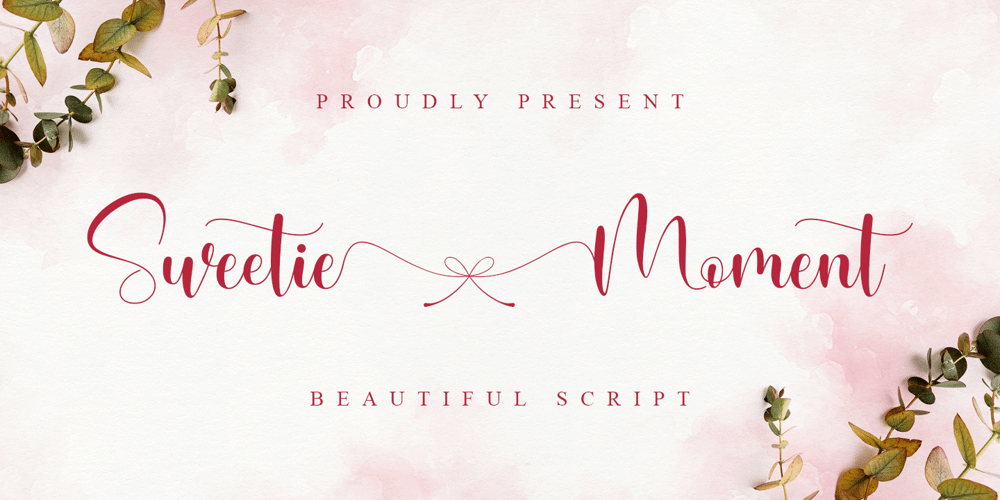
Sweetie Moment Font Family was designed by Abdul Malik Wisnu and published by Almarkha Type. Sweetie Moment contains 1 styles and family package options. Sweetie Moment – is a Beautiful Script font with a natural handwritten feel. It has sweety swash that are perfect for any creative design. Sweetie Moment has many swash character that functions as a connector with the next letter, perfect for crafters and invitations will make your design has a beautiful natural touch for each details. It is perfect for any design project as Invitation,logo, book cover, craft or any design purposes.This font is PUA encoded which means you can access all of the magical glyphs and swashes with ease! It also features a wealth of special features including alternate glyphs and ligatures.